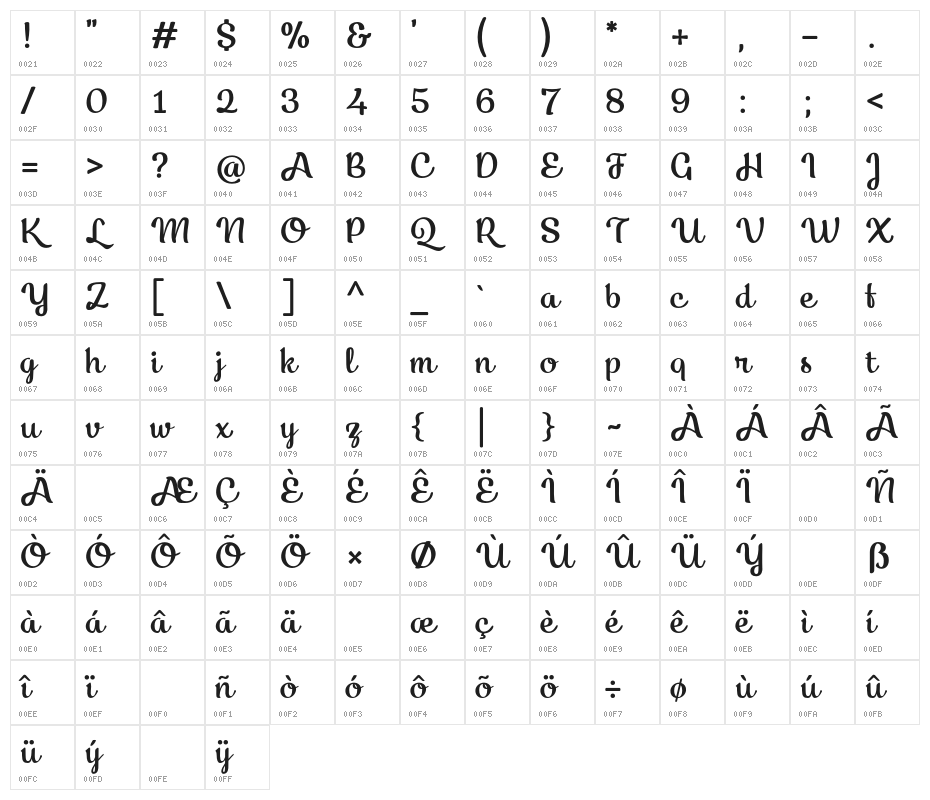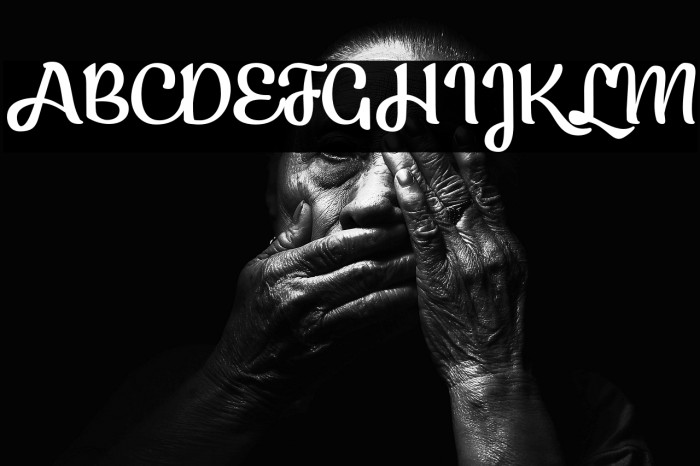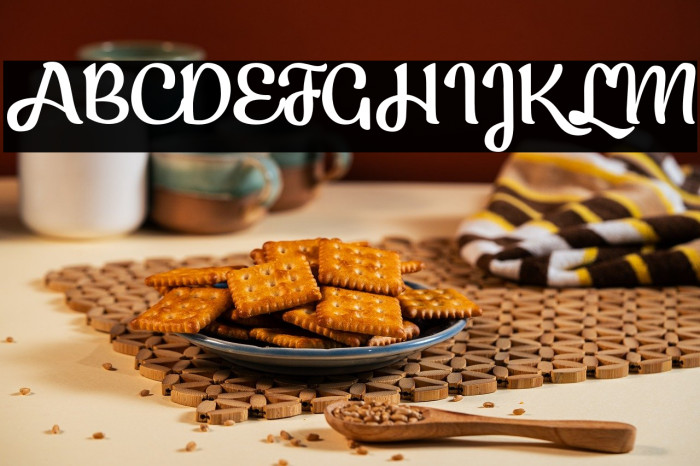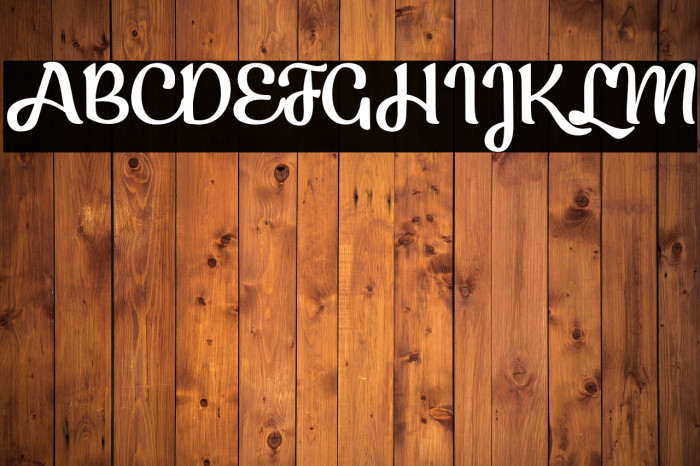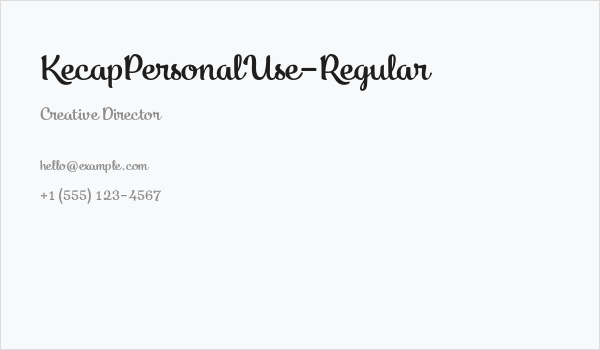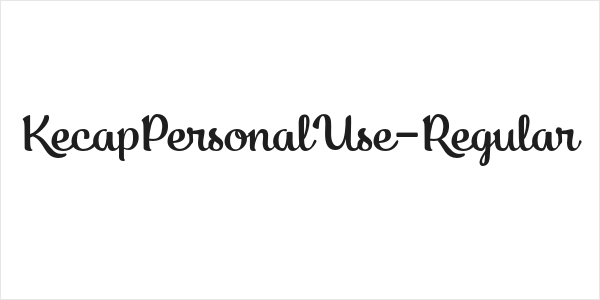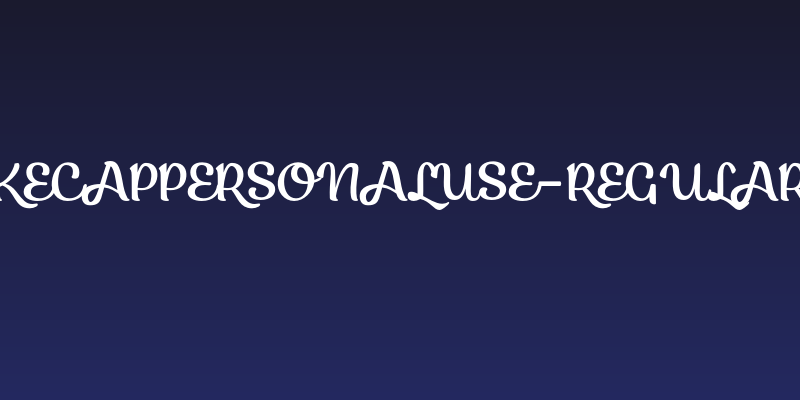
KecapPersonalUse-Regular Font
KecapPersonalUse-Regular Description
This font features a playful and flowing script style, characterized by its smooth, cursive letterforms. The uppercase letters are bold and expressive, with a whimsical flair that adds a touch of elegance. The lowercase letters maintain a consistent flow, enhancing readability while retaining a sense of charm. Numbers are clear and distinct, matching the overall style of the alphabet. Special characters are integrated seamlessly, ensuring versatility in various design contexts. The font's overall appearance is both friendly and sophisticated, making it suitable for a wide range of creative projects.
Use CaseLogos, Headlines, Invitations
Proposed ProjectsIdeal for invitations, greeting cards, branding, and decorative signage.